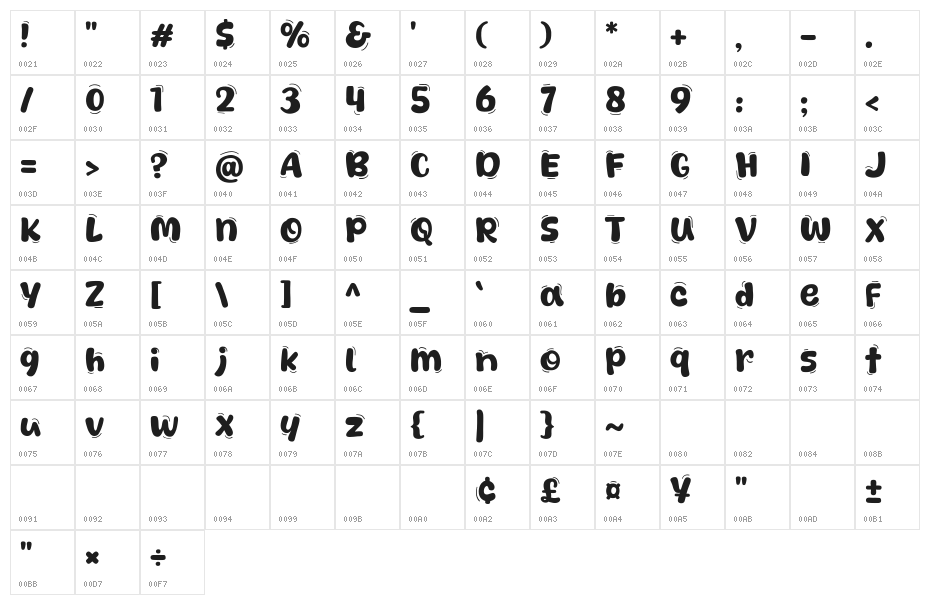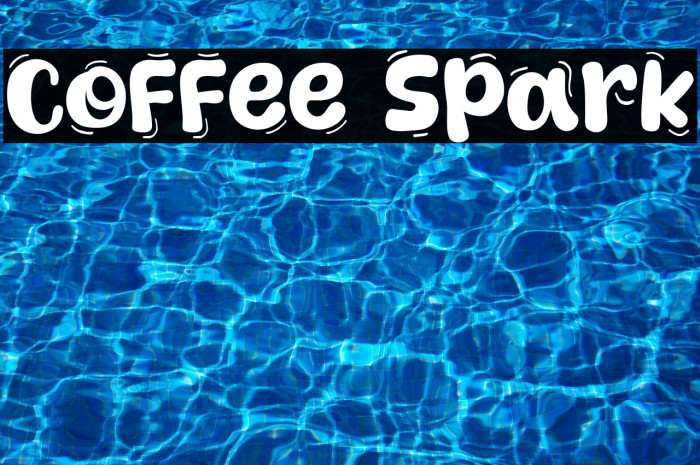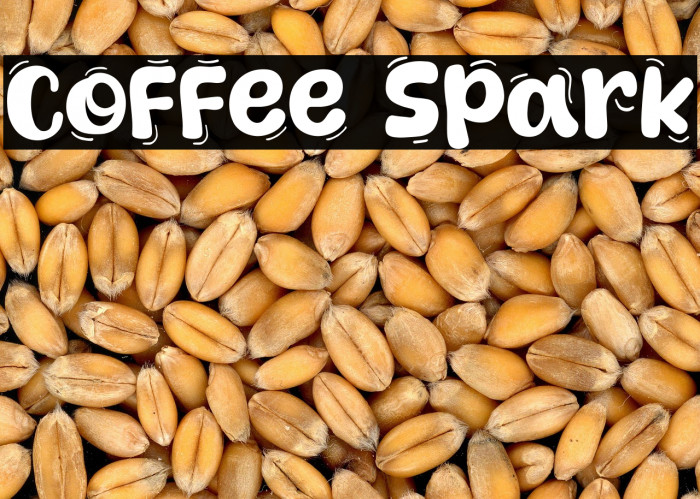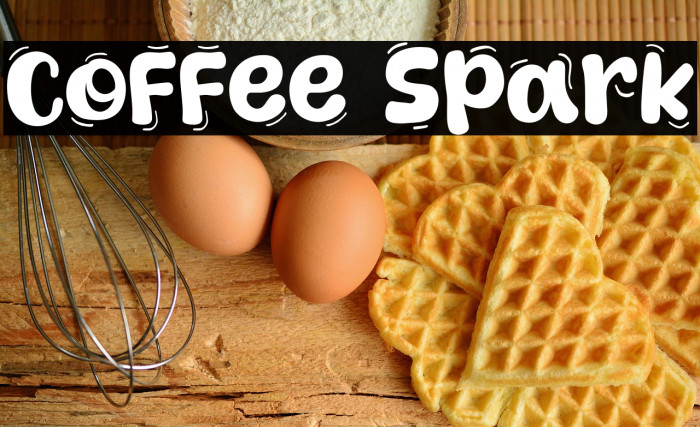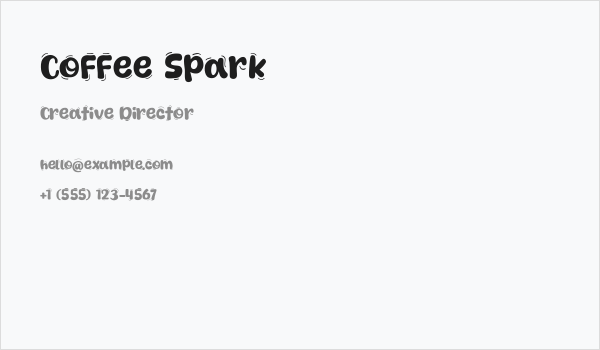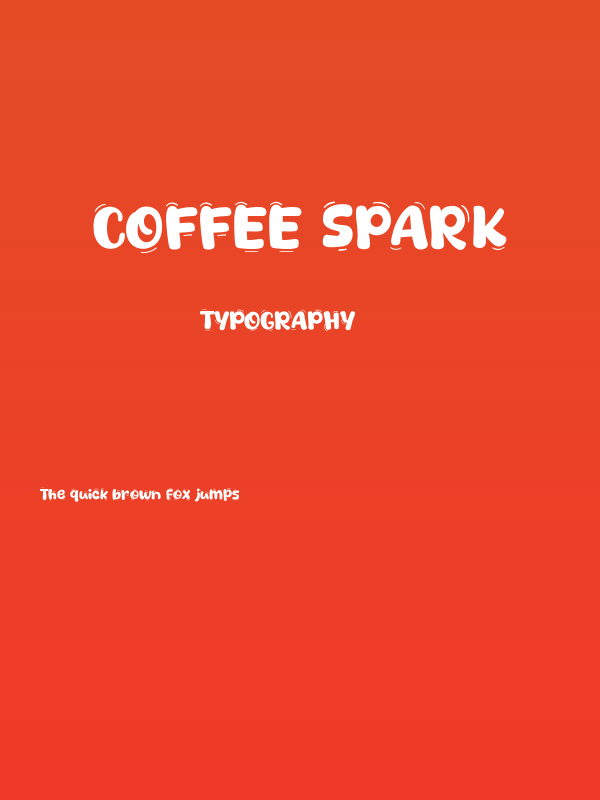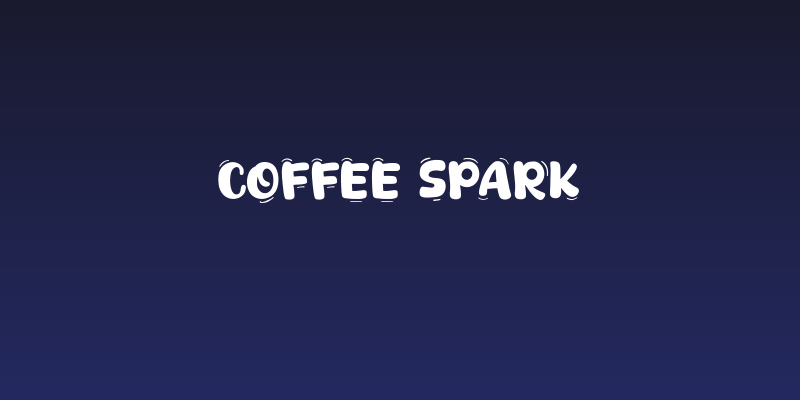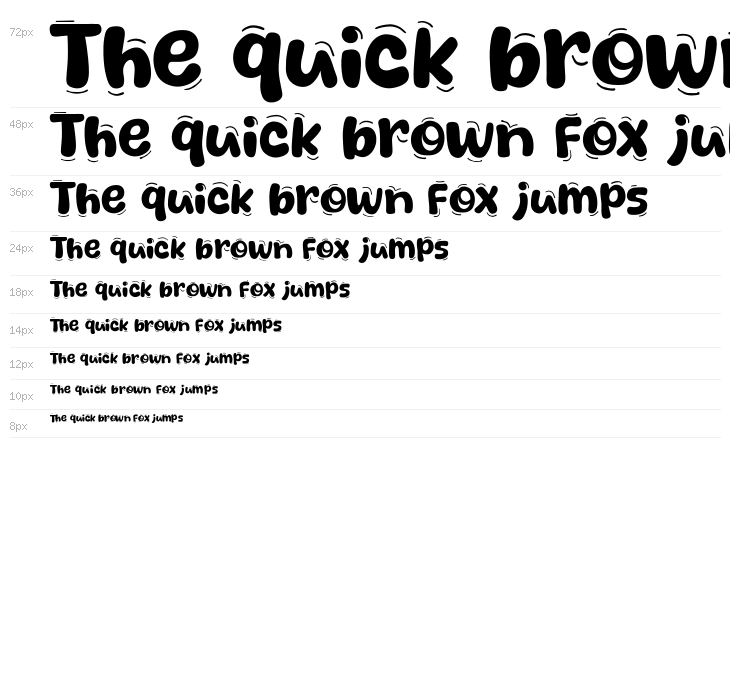
Coffee Spark Font
Coffee Spark Description
This playful and energetic font features bold, rounded characters with a unique, wavy design that adds a sense of movement and fun. The letters are thick and substantial, with a slightly irregular form that gives them a hand-drawn appearance. The font maintains a consistent weight throughout, with each character exhibiting a whimsical flair. The numbers and special characters follow the same lively style, making it suitable for creative and informal applications. Its distinctiveness lies in the dynamic curves and bold presence, making it stand out in any design.
| Overall Style | Playful, Energetic, Hand-drawn |